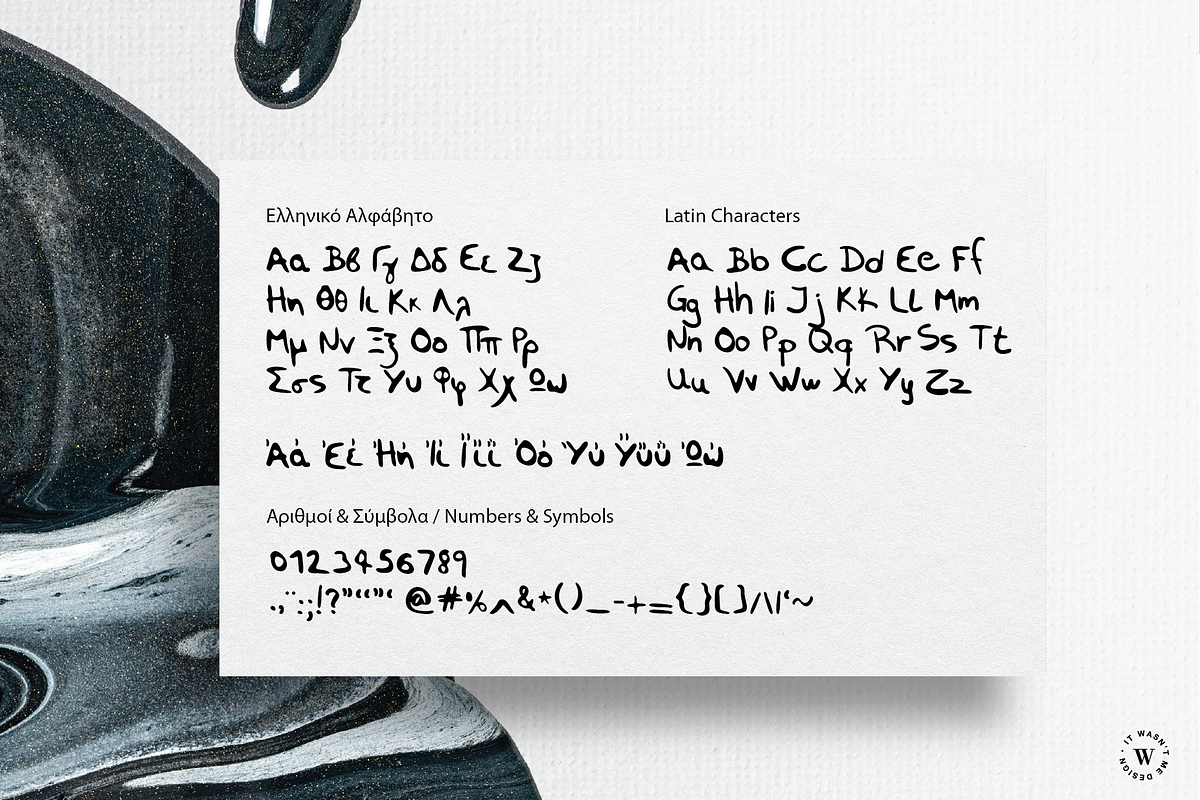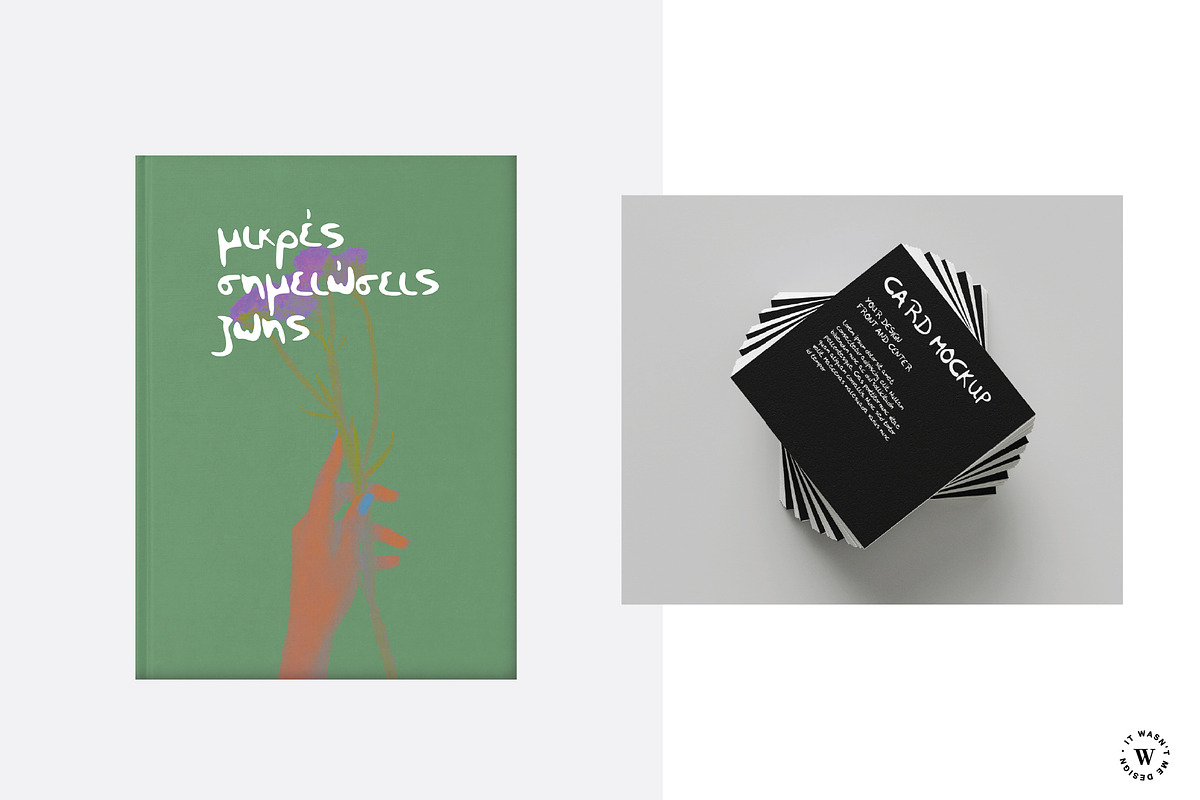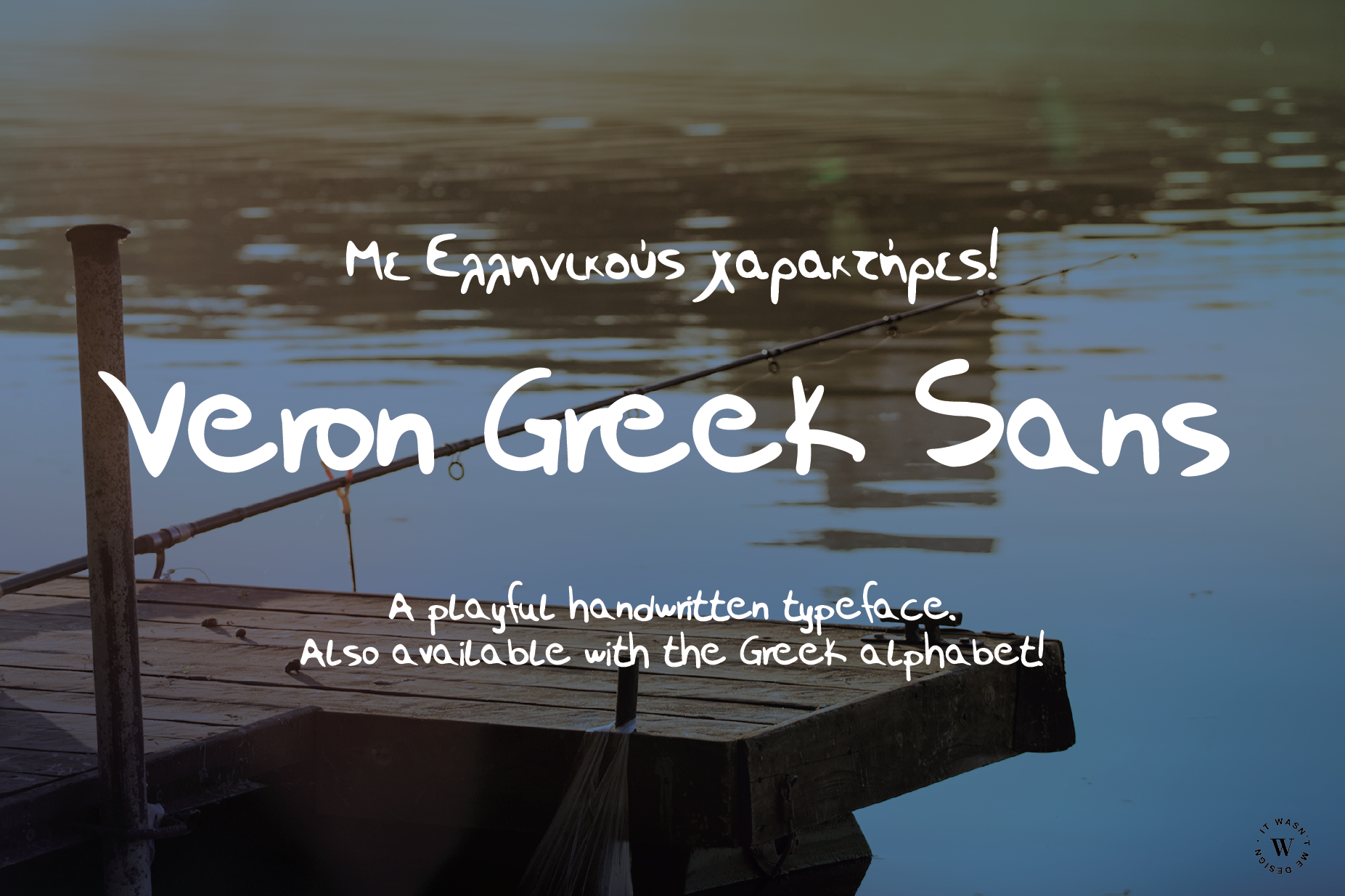
Veron Greek Sans Font
- About the Font
This typeface is a playful handwritten font inspired by spontaneous marker strokes and natural human expression. Its irregular shapes and organic rhythm create an authentic and approachable character. Designed for creative projects, posters, and branding, it brings warmth and personality to any design that seeks a bold yet informal feel.
- Style & Concept
The style of this font celebrates the beauty of imperfection. Each character maintains a handmade quality that feels natural and expressive, reminiscent of quick notes, sketches, and spontaneous ideas. The result is a typeface full of personality that adds energy, creativity, and a human touch to modern design.
- Character Set
This font includes a carefully designed set of characters to support creative typography.
• Greek characters • Latin characters • Uppercase and lowercase letters • A naturally flowing handwritten style
The characters balance expressive shapes with readability, making them suitable for a wide range of design uses.
- Numbers & Symbols
The font also includes essential characters for everyday design work.
• Numbers (0–9) • Punctuation marks • Basic symbols
These additions make the font practical for posters, titles, social media graphics, and editorial layouts.
- Perfect For
This font works beautifully in a variety of creative applications.
• Posters • Branding • Social media graphics • Creative projects • Editorial design • Artistic layouts